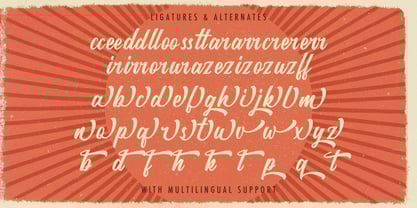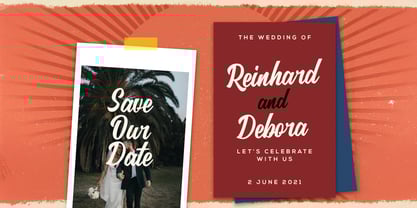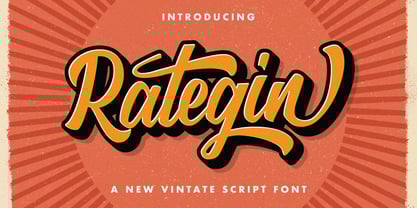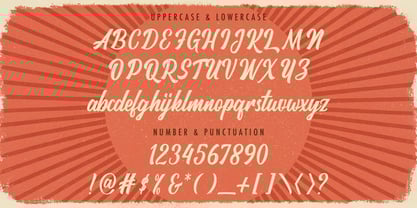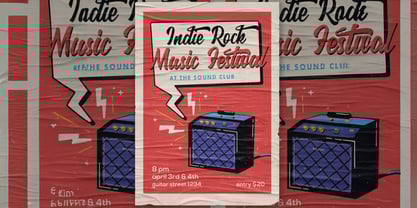
The Rategin Font Family was designed by Virgiawan Listanto and published by Stringlabs Creative Studio. Rategin contains 1 styles. More about this family
Rategin is a vintage script font that blends timeless charm with bold, handcrafted elegance. With its sweeping curves, retro-inspired letterforms, and nostalgic character, this font brings a touch of old-school sophistication to your designs.